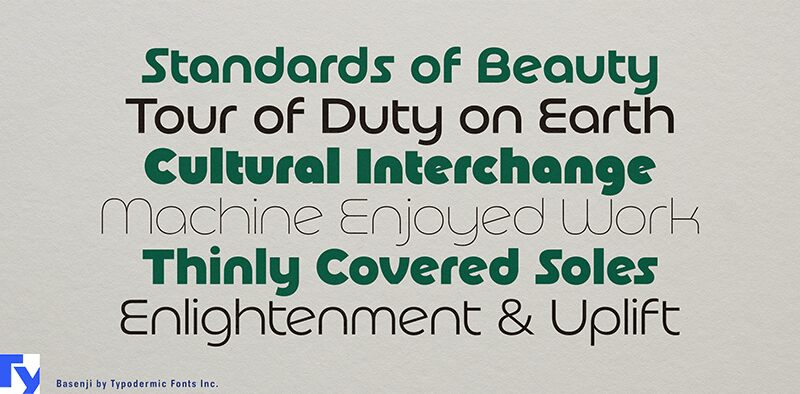
Basenji font family by Typodermic Fonts features a blend of futuristic fluidity and streamlined design. This font family encompasses a modern, technological sensibility that is characterized by geometric influence and dynamic movement. Its circular forms and sleek structure are tailored for contemporary applications that demand a cutting-edge appearance.
Ideal for tech-related projects, the Basenji font family is perfect for websites, mobile apps, and software interfaces. It can enhance branding, logos, and product packaging, creating a futuristic vibe. Brochures, posters, and social media content can benefit from its aesthetic, along with invitations, business cards, and other printed materials.
Basenji draws inspiration from the playful geometry of 1970s classics such as Rondo, Pump, Bauhaus, and Blippo, reimagined with the precision and flexibility that modern designers expect. Its rounded forms transition effortlessly from soft, friendly text to bold, sculptural headlines, making it suitable for branding, editorial design, or large-scale signage. Rooted in retro charm yet refined for contemporary use, Basenji brings the warmth of the past into today’s design workflows.